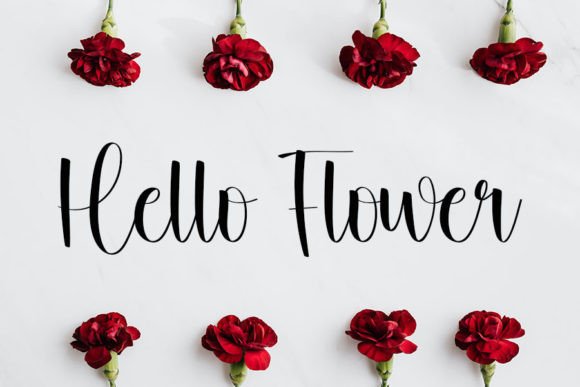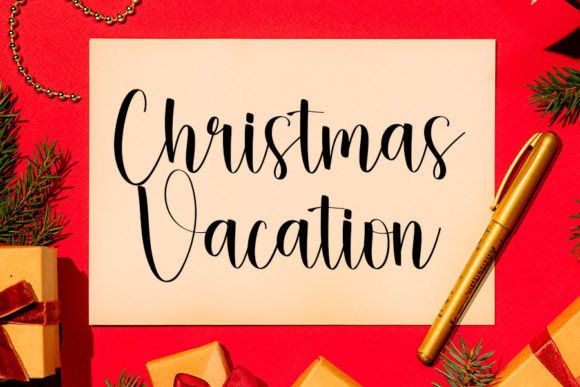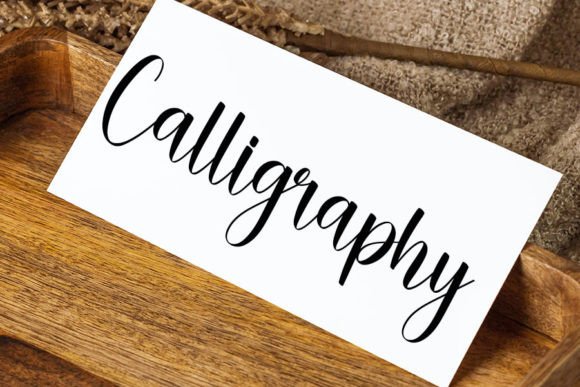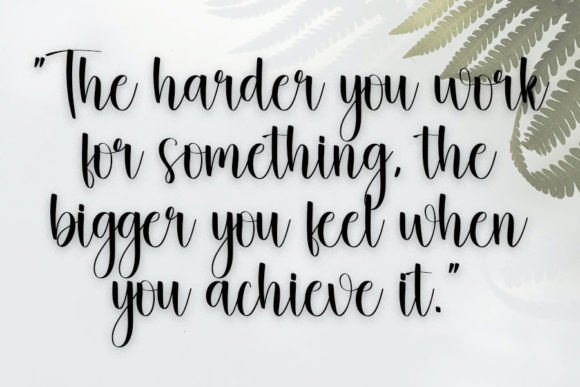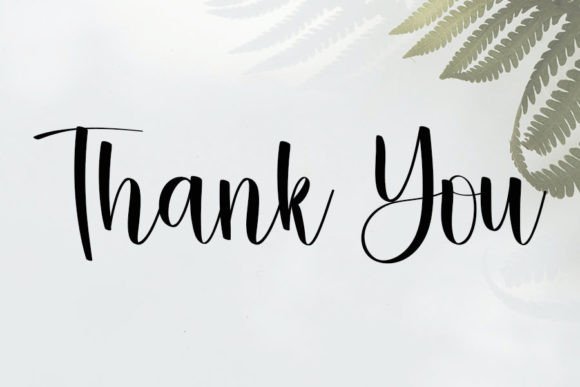
Introducing Attitude Font: The Fun and Friendly Handwritten Font for All Occasions
Are you tired of using the same old fonts for your designs, crafts, and presentations? Look no further! Attitude Font is here to add a touch of fun and friendliness to your projects. This versatile handwritten font is perfect for crafters, digital designers, and anyone looking to add a personal touch to their work. In this article, we’ll dive into the world of Attitude Font and explore its features, uses, and benefits.
A Font for All Occasions
Attitude Font is a unique and charming handwritten font that can be used for a wide range of projects. Whether you’re creating greeting cards, crafting signs, or designing presentations, this font is sure to become your go-to choice. Its friendly and approachable vibe makes it perfect for:
- Crafts: Add a personal touch to your handmade crafts, such as scrapbooking, journaling, and card making.
- Digital Design: Use Attitude Font in your digital designs, including social media graphics, blog posts, and website headers.
- Presentations: Make your presentations more engaging and fun with Attitude Font.
- Greeting Cards: Create personalized and heartfelt greeting cards for special occasions.
What Makes Attitude Font Special?
Attitude Font stands out from other fonts due to its unique characteristics. Here are some features that make it special:
- Handwritten: Attitude Font has a genuine handwritten feel that adds a touch of warmth and personality to your projects.
- Fun and Friendly: The font’s playful and approachable vibe makes it perfect for projects that require a lighthearted tone.
- Versatile: Attitude Font can be used for a wide range of projects, from crafts to digital design.
- Easy to Read: The font is clear and easy to read, making it perfect for body text and headings.
Tips for Using Attitude Font
Here are some tips for getting the most out of Attitude Font:
- Pair it with Other Fonts: Combine Attitude Font with other fonts to create a unique and visually appealing design.
- Experiment with Colors: Try out different colors to match the tone and mood of your project.
- Use it for Headings and Titles: Attitude Font is perfect for headings and titles, adding a touch of personality to your text.
- Don’t be Afraid to Get Creative: Attitude Font is a versatile font that can be used in a variety of creative ways, so don’t be afraid to experiment and try new things.
Attitude Font is a fun and friendly handwritten font that’s perfect for crafters, digital designers, and anyone looking to add a personal touch to their projects. Its versatility, ease of use, and unique characteristics make it a great addition to any design or craft project. Whether you’re creating greeting cards, crafting signs, or designing presentations, Attitude Font is sure to become your go-to font. So why not give it a try and see the difference it can make in your work?